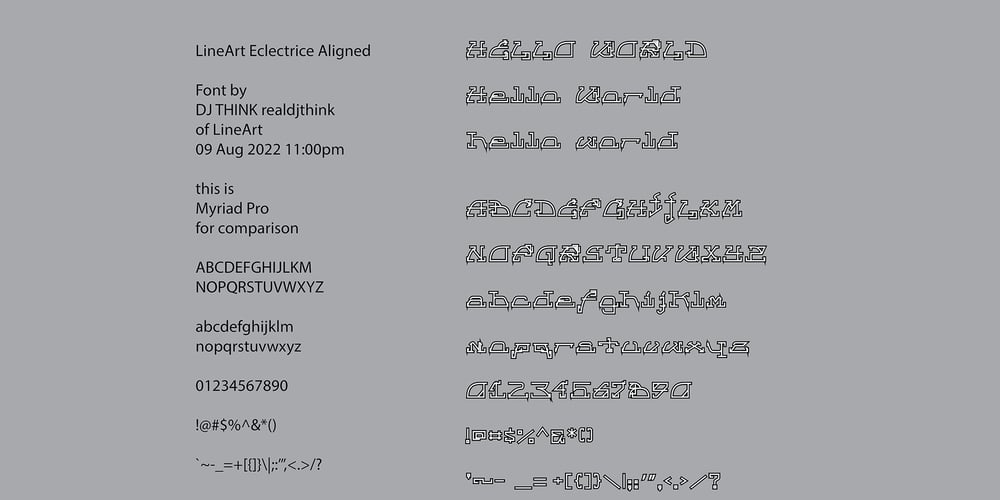
Line Art Eclectrice Aligned Font Family was designed by Rene Toussaint and published by DJ THINK. Line Art Eclectrice Aligned contains 1 styles and family package options. Thanks for checking out LineArt ECLECTRICE (pronounced EHCK-LEHCK-TREES) Light Aligned font by Rene Toussaint (otherwise known as DJ THINK) of LineArt Foundry and Brand. This font is designed in the vein of graffiti art with stylings of hip-hop and hieroglyphic appearance. Try it in a preview window and check out if it will meet your needs for something cool and hip for your next flyer design or other type of graphic art image.Keep in mind that this is a light design and may require extra thickening in your vector program of choice with outline thickness options.